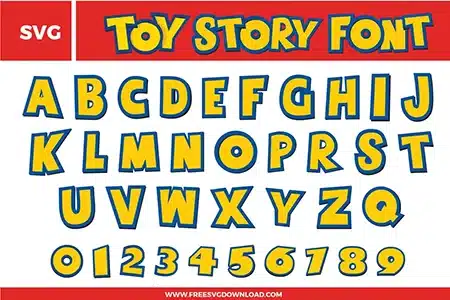
Toy Story Font Free SVG File
A playful and iconic Toy Story Font free svg files set. The design features bold, blocky yellow characters with a thick blue outline and a subtle drop shadow effect. This SVG alphabet bundle includes a full set of uppercase letters and numbers 0-9 in a fun, whimsical typography style inspired by the classic movie logo, perfect for nursery decor and birthday crafts.
• Toy Story Font SVG: Full uppercase alphabet set with matching numbers, designed in a playful cartoon block style with bright yellow letter fills, blue outlines, rounded corners, and slightly irregular character angles.
How do I use the Knockout tool for this two-color layered font?
Place the yellow letter layer over the blue outline layer. Select both and use the ‘Slice’ or ‘Subtract’ tool to cut the yellow shape out of the blue base. This creates a single-layer feel where the colors fit together like a puzzle, which is much more comfortable for t-shirts than stacking thick layers of vinyl.
Fonts with simulated shadows or thick outlines often have overlapping or redundant anchor points. Using the ‘Simplify’ command in your software streamlines the vector paths. This ensures your cutting blade moves in a smooth, continuous path, reducing the risk of the vinyl tearing at the corners of the blocky letters.
If the internal holes of the letters are too small for your specific project, use the ‘Contour’ tool to hide those paths. This turns the characters into solid silhouettes. This is a great trick for making small, legible labels or when working with difficult materials like glitter or flock HTV.
When cutting these chunky letters out of high-tack adhesive vinyl, use the standard ‘Vinyl’ setting but increase the pressure to ‘More’ if your blade is not brand new. Since the font has mostly straight edges and wide curves, you can maintain a standard speed without worrying about detail loss.
To create a professional sticker look, select your text and apply a 0.10-inch external Offset. Fill this new background layer with white. This creates a clean border around the yellow and blue characters, making them stand out against any background and providing a larger surface area for the adhesive.